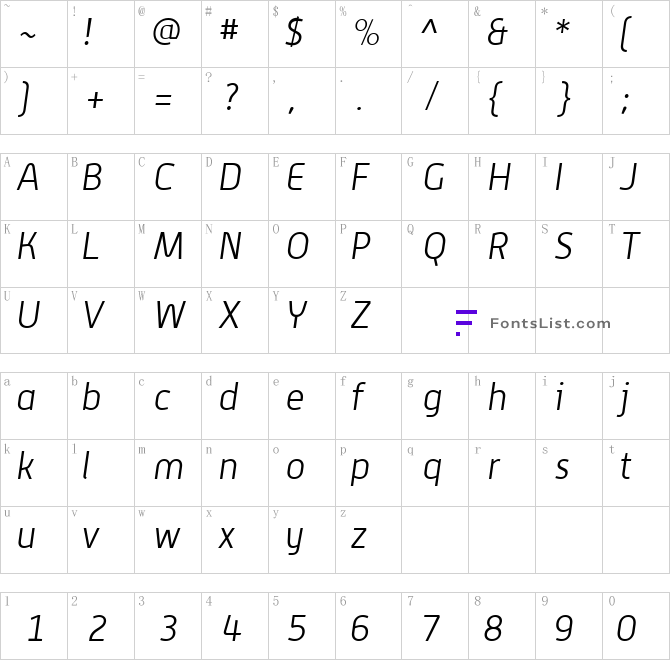
• Font Name:Alwyn
• Subfamily:LightOblique
• Full Name:Alwyn LightOblique
• Weight:300
Alwyn-LightOblique.ttf is a very beautiful artistic font, Alwyn-LightOblique.ttf is widely used in the design and printing of various books and pictures,Alwyn-LightOblique.ttf has a strong visual impact,Alwyn-LightOblique.ttf is a commonly used font in newspapers, magazines and books, and is used in posters, e-commerce Poster design, store design, logo design, font design and other fields.Alwyn-LightOblique.